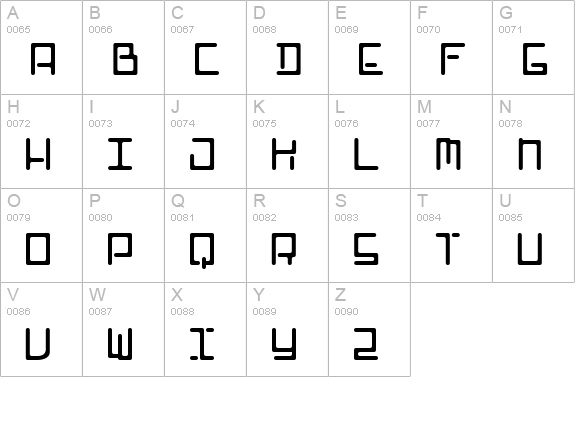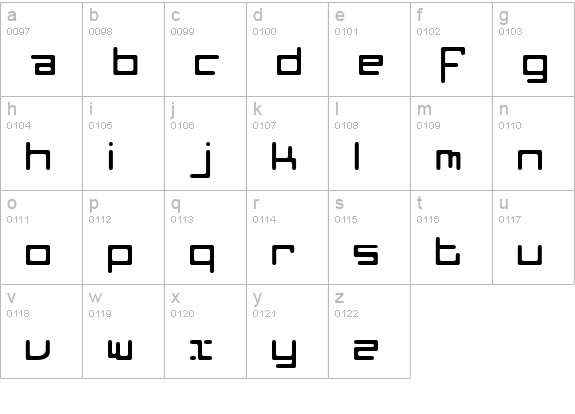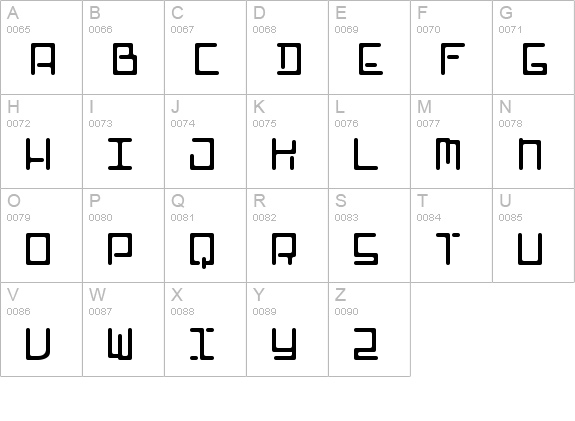
Poophead Font Details
Introducing Poophead font, a quirky and playful typeface that adds a touch of lightheartedness to any design project. With its whimsical letterforms and unique style, Poophead is perfect for adding a fun and casual vibe to your branding, packaging, posters, and more. Best of all, Poophead font is available for free download at FontsMarket.com. This means you can easily access this delightful font without any cost, making it a great choice for designers looking to add a touch of humor to their work without breaking the bank. So why wait? Download Poophead font today and let your creativity run wild!